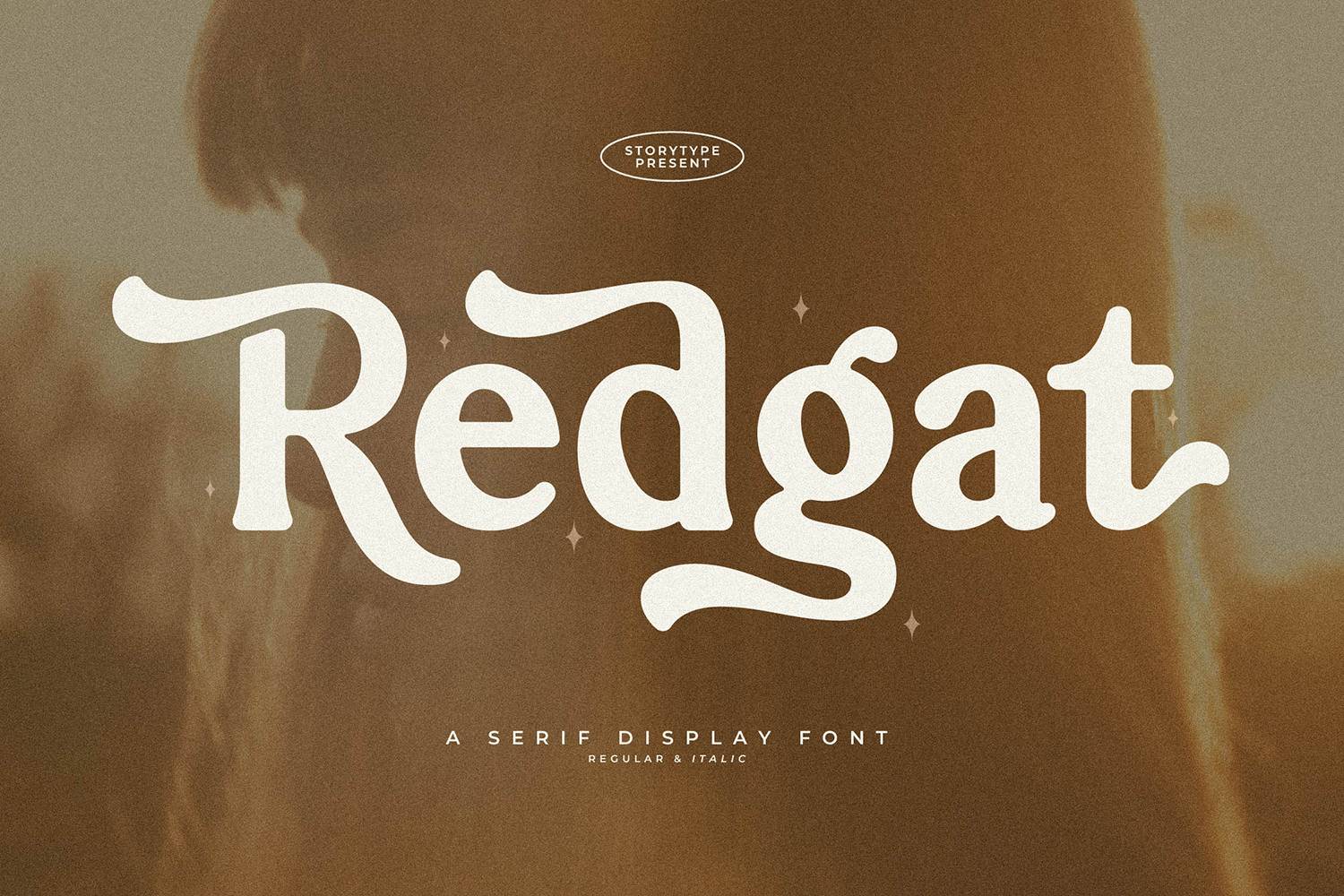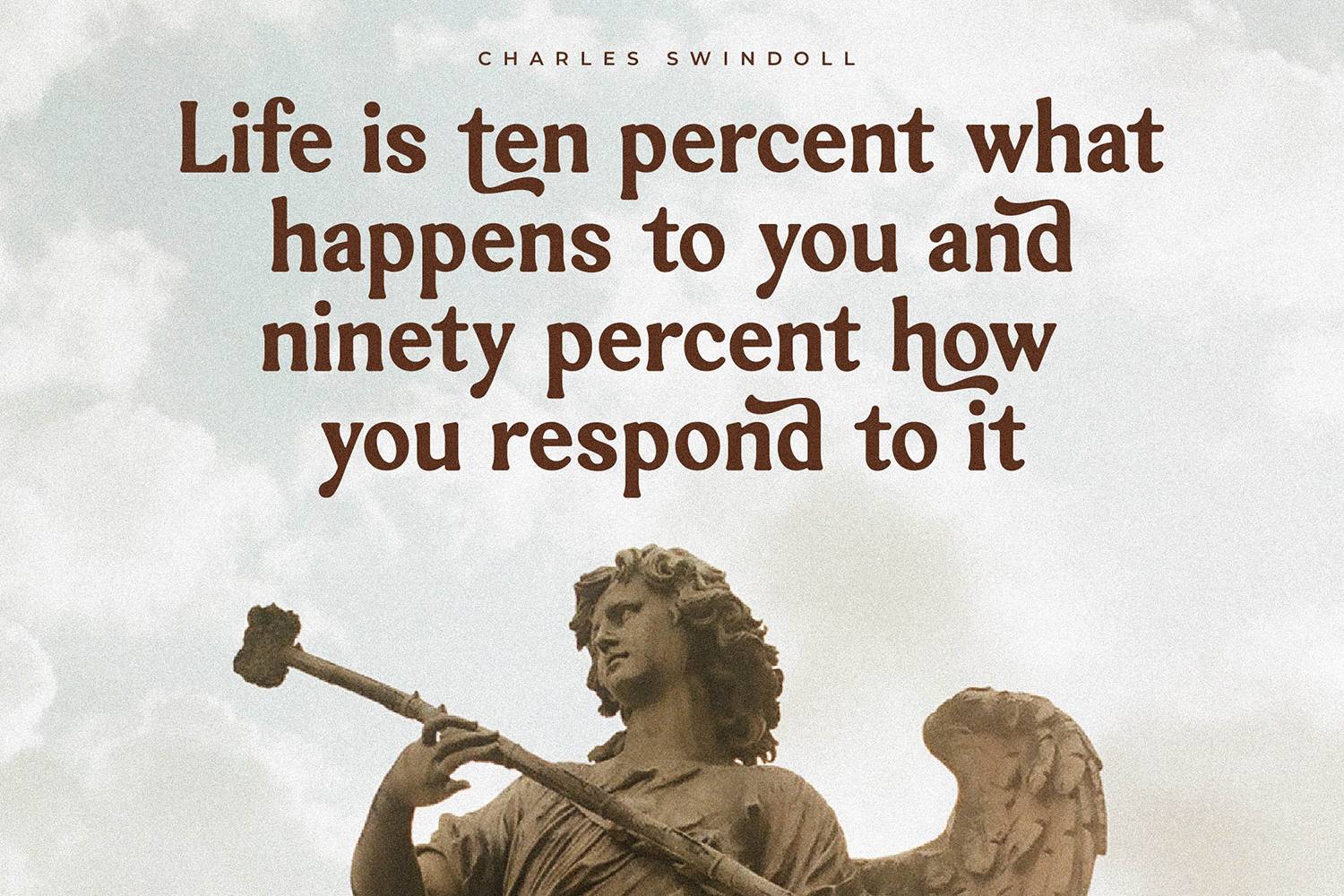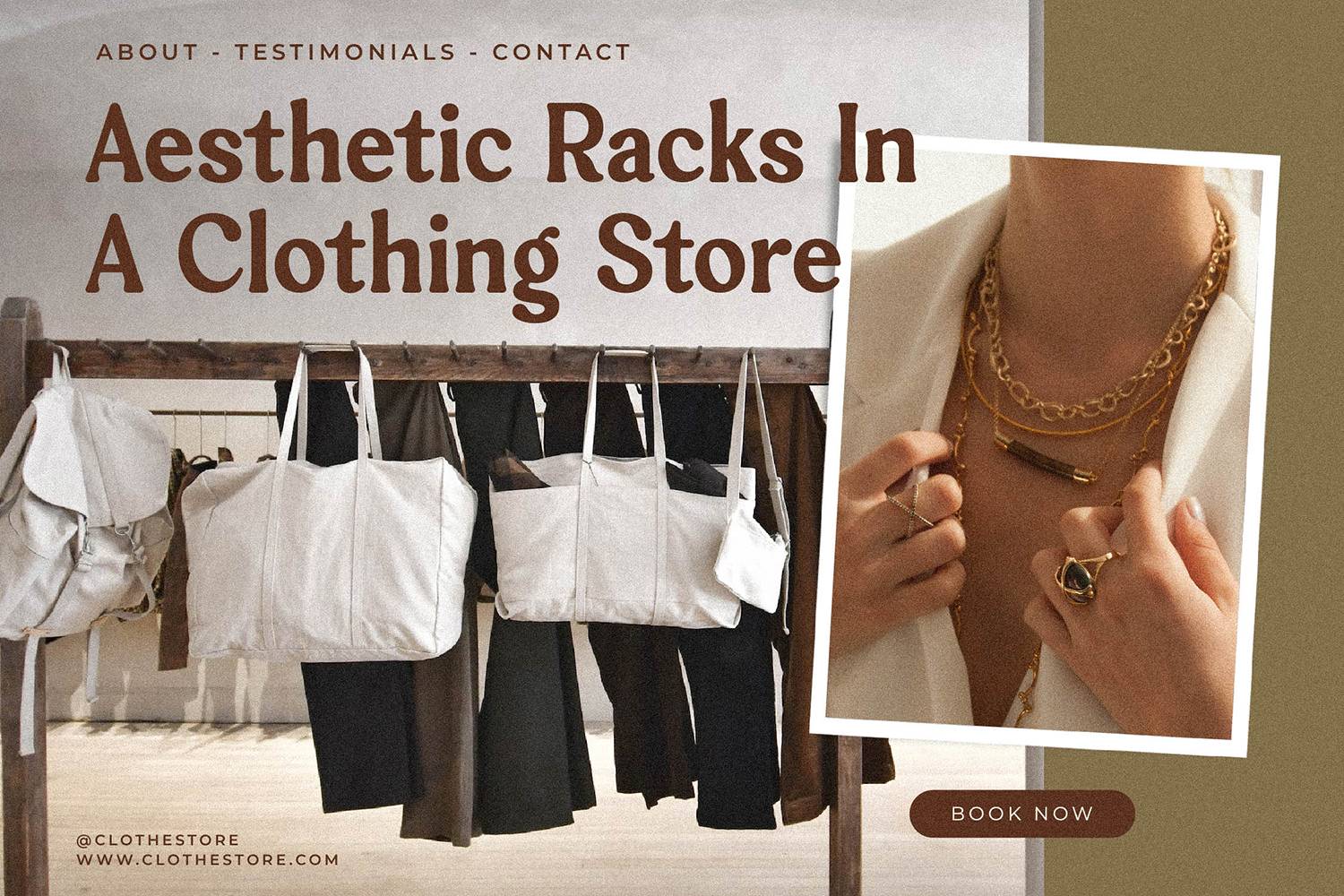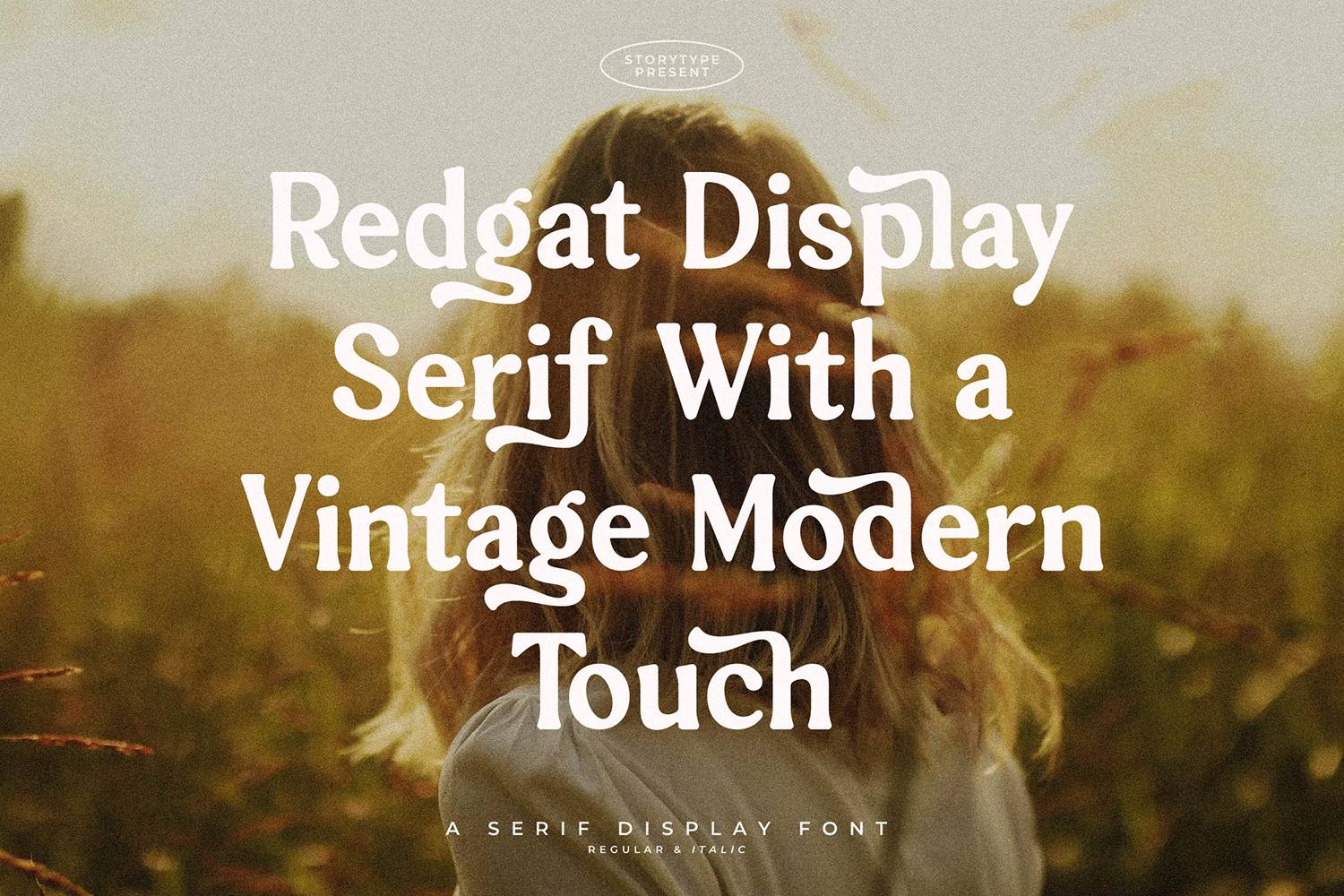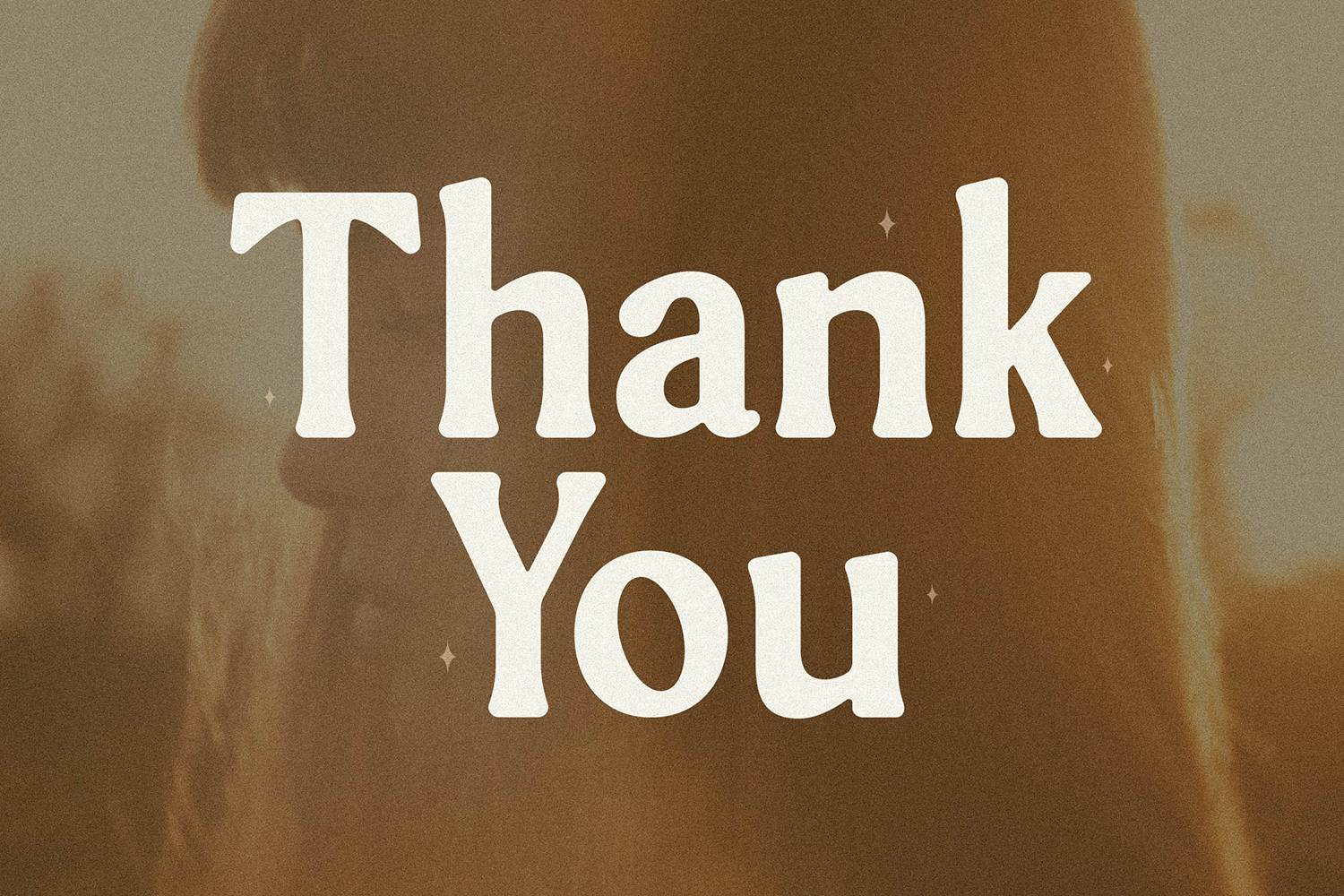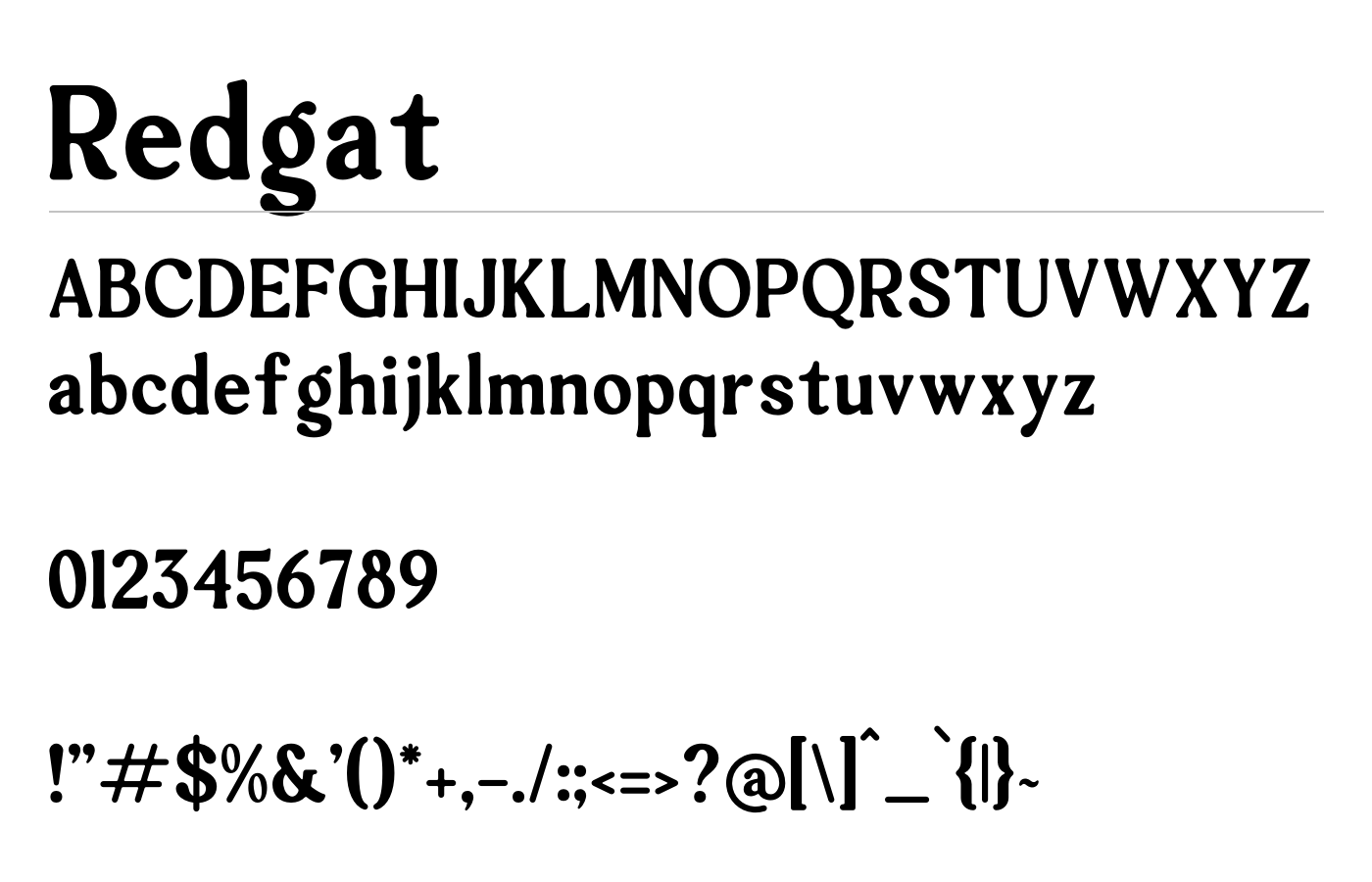
Redgat is a slab serif font with a sturdy yet playful character, featuring moderate contrast and slightly rounded edges that give it a friendly, inviting feel. Its unique letterforms and clear readability make it well-suited for branding, packaging, editorial use, and headlines where a vintage-inspired but approachable style is desired. This font combines classic structure with subtle quirks, making it versatile for both modern and retro design projects.
Redgat Font
About Redgat Font